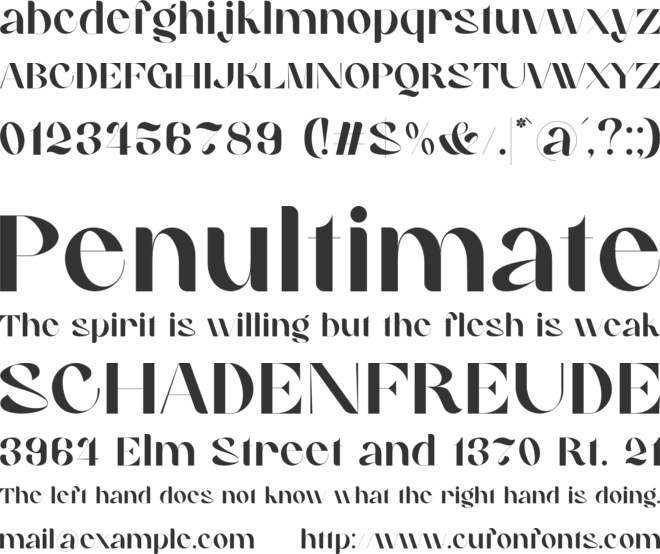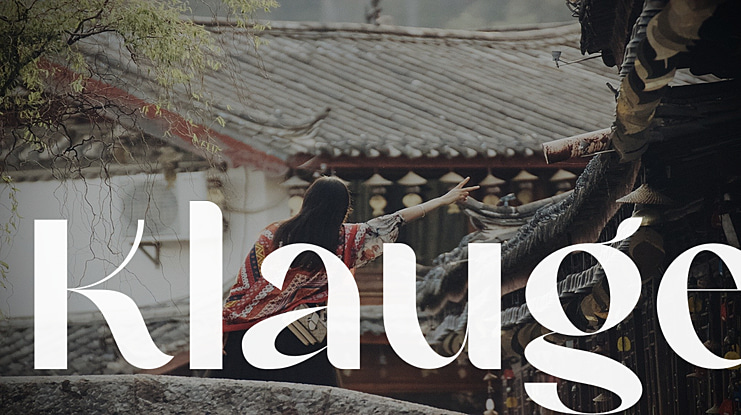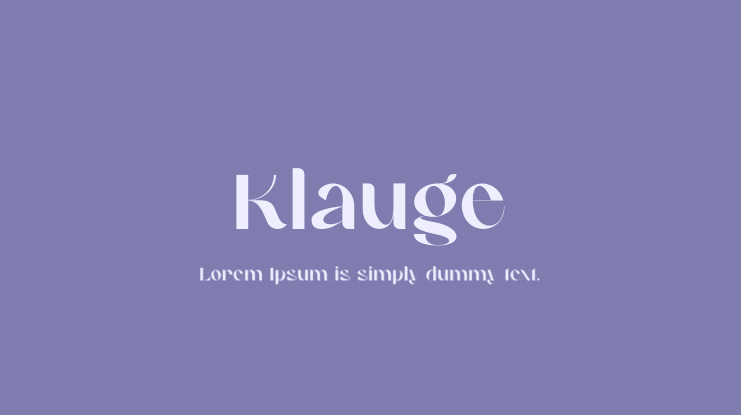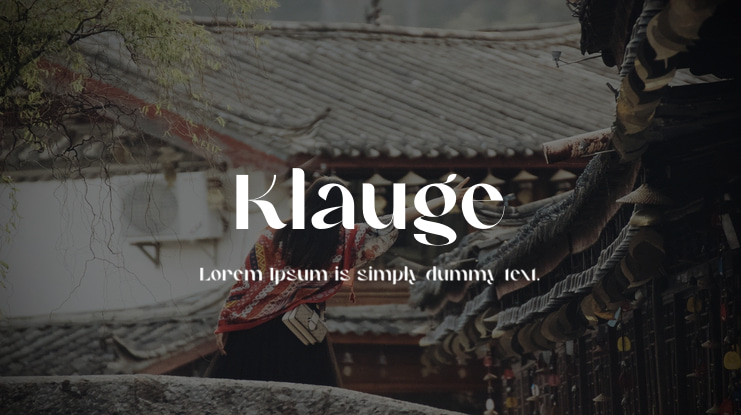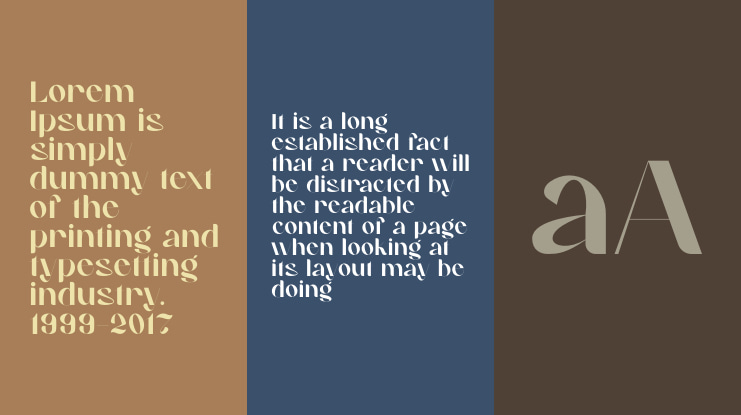
Klauge Font
Bryantama Nur Hidayat Suyoto
It’s a modern vintage serif font packaged in a modern and classy style, complete with access to your OpenType features to access a large selection of alternates letters and ligatures. Inspired by a classy theme with magical feels that makes the font has a unique personality, you can use it for branding, social media, posters, packaging, & more.